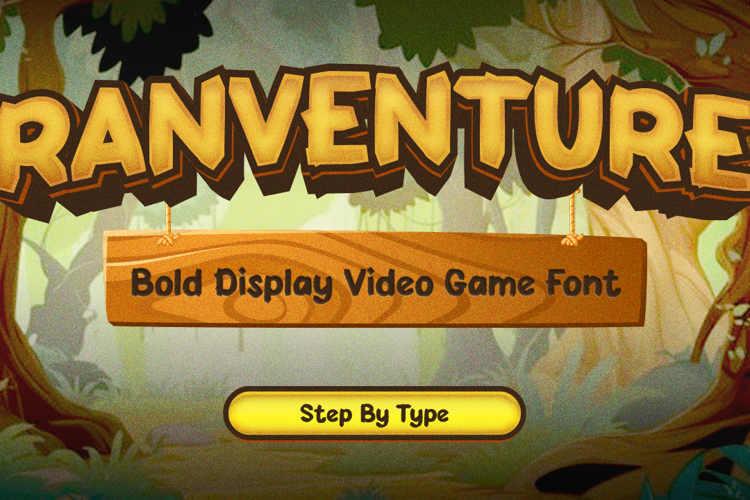
Raventure Font
Ranventure is a bold, handcrafted video game font designed to bring epic energy to your titles, screens, and stories. With chunky, expressive shapes and a nostalgic gaming edge, it’s perfect for content creators, indie developers, and anyone looking to stand out in the world of fonts in games.
🎮 Style & Energy
• Bold, energetic, and slightly rugged—crafted for epic storytelling
• Evokes classic arcade games with a modern, playful twist
• Delivers a confident, character-driven aesthetic
🕹️ Intended Market & Use
Perfect for all things gaming and beyond:
• Indie game UI, loading screens, level headers
• Gamer YouTube banners, Twitch overlays, Discord graphics
• E-sport event branding, controller skins, sticker packs
• Comic-style artwork, merch packaging, and more
🔤 Letterform Structure
• Handcrafted all-caps style with matching lowercase
• Slightly rough, natural edges for an organic digital feel
• Combines strength and personality in every glyph
🚀 Best Use Cases
• Fonts in games: HUD, achievements, and map text
• Gaming YouTube and Twitch branding
• Posters, thumbnails, fan art, and apparel
• Fantasy-themed packaging and comic titles
Fuel your designs with the energy of retro games and modern action.
Ranventure isn’t just another video game font—it’s a power-up for your visuals. Whether you're building your gamer identity, launching an indie game, or crafting thumbnails that pop, this font gamer delivers the impact and bold personality that sets your design apart.
✅ Designed for the Gaming World
Perfect balance of clarity and style—ideal for high-energy visuals.
✅ Bold and Character-Driven
Every letter adds attitude, emotion, and presence.
✅ Authentic Handcrafted Look
Rough edges and playful shapes give it a unique analog vibe.
✅ Versatile Across Platforms
Works beautifully on digital overlays, printed packaging, or in-game text.
✅ Built for Fonts in Games
Optimized for interface design, scoreboards, titles, and beyond.
Create bold, unforgettable designs that speak the language of gamers.
Whether you’re launching a new game, building a content channel, or crafting bold merch, Ranventure is the video game font your audience has been waiting for. Don’t settle for default—equip this font gamer weapon and stand out in a sea of sameness.